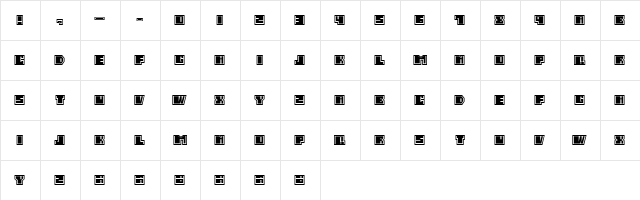
Salmiak College Regular
Design Context for Salmiak College Typeface
Salmiak College brings high-energy athletic personality to the page — its confident, muscular forms are built for impact.
Built for sports team identities, athletic apparel, event posters, and high-energy promotional material.
Pro Tip: Salmiak College thrives on contrast — try it large, bold, and tight against a clean background for maximum visual impact.